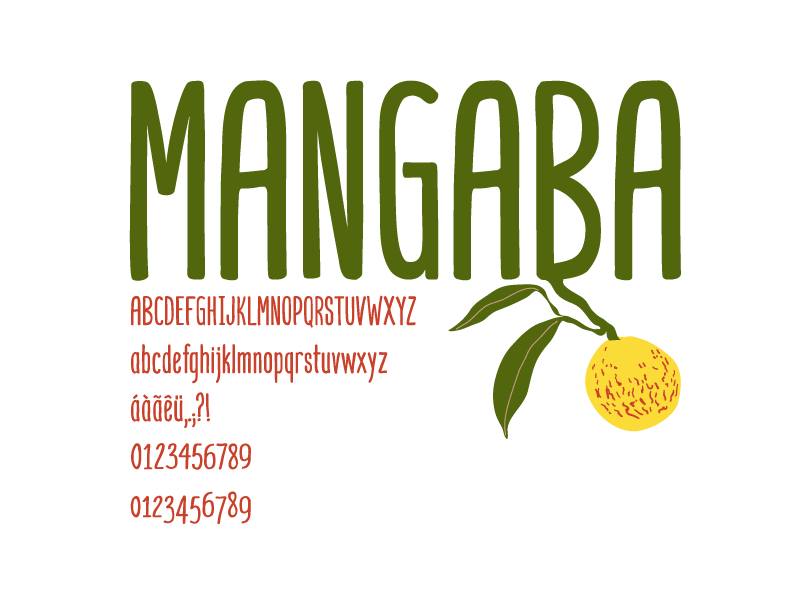
Mangaba Font
Mangaba is a condensed text font designed to create a hand-made feel for texts in small spaces.
Includes Latin characters, punctuation, diacritics and old style numbers.
Mangaba is a condensed text font designed to create a hand-made feel for texts in small spaces.
Includes Latin characters, punctuation, diacritics and old style numbers.
| Designer Name: | Eliezer Grawe |
| Classification: | Script Fonts |